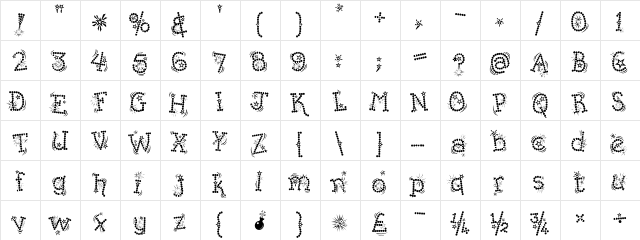
Kingthings Whizzbang regular
| Designer | Kevin King |
Design Context for Kingthings Whizzbang Typeface
Kingthings Whizzbang is a composed and adaptable typeface that performs quietly and consistently across a wide range of design contexts. The delicate stroke weight brings airiness and refinement to layouts.